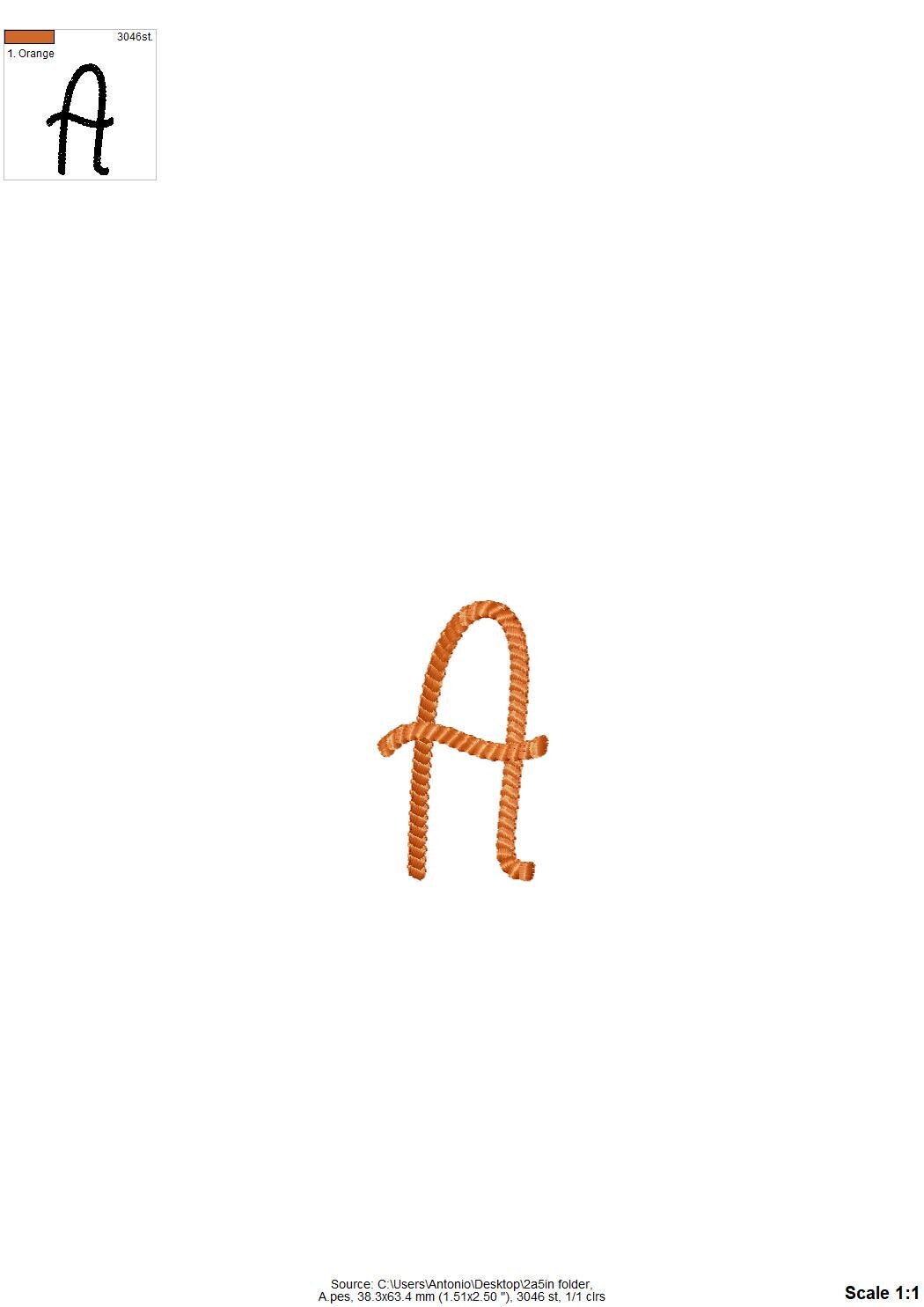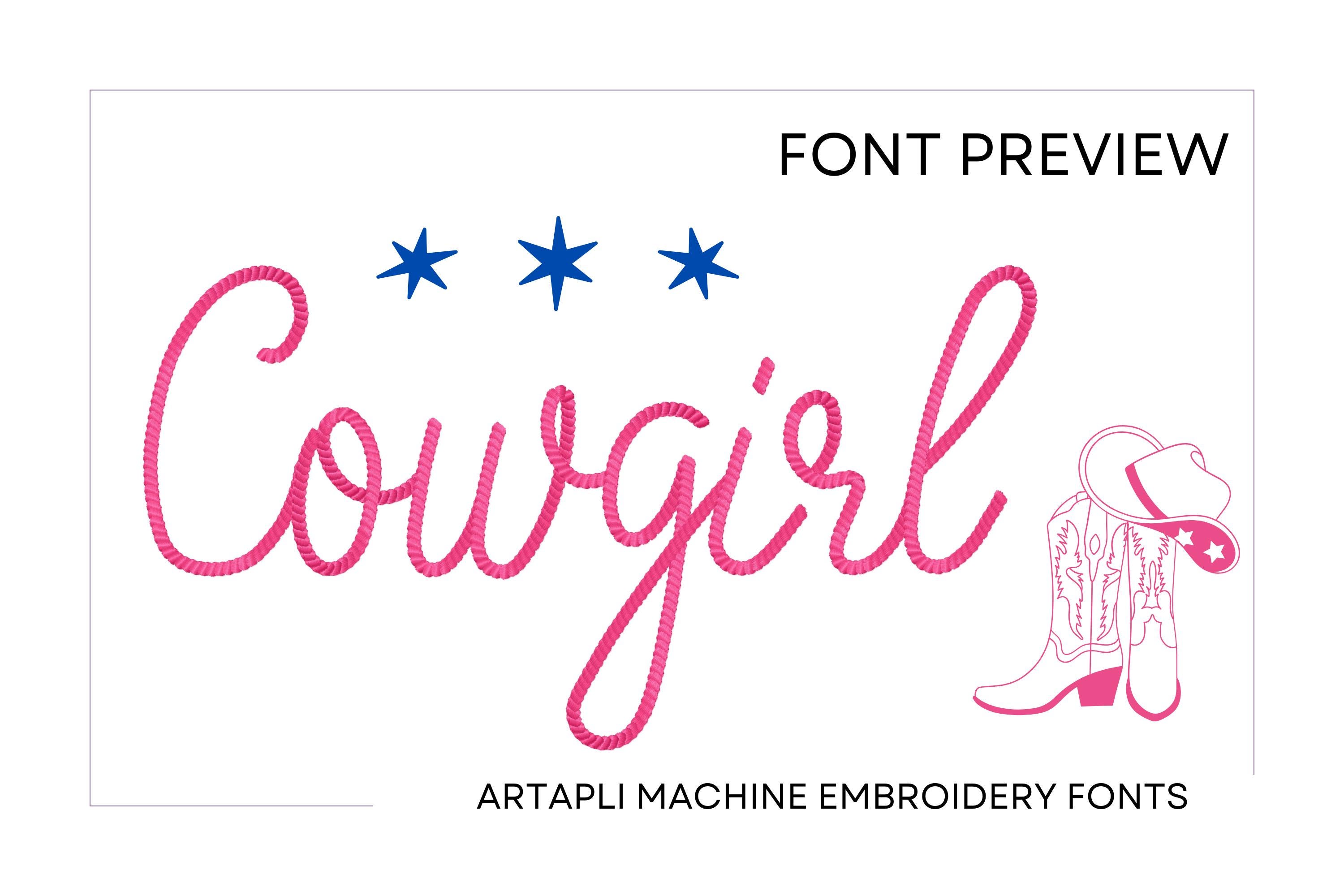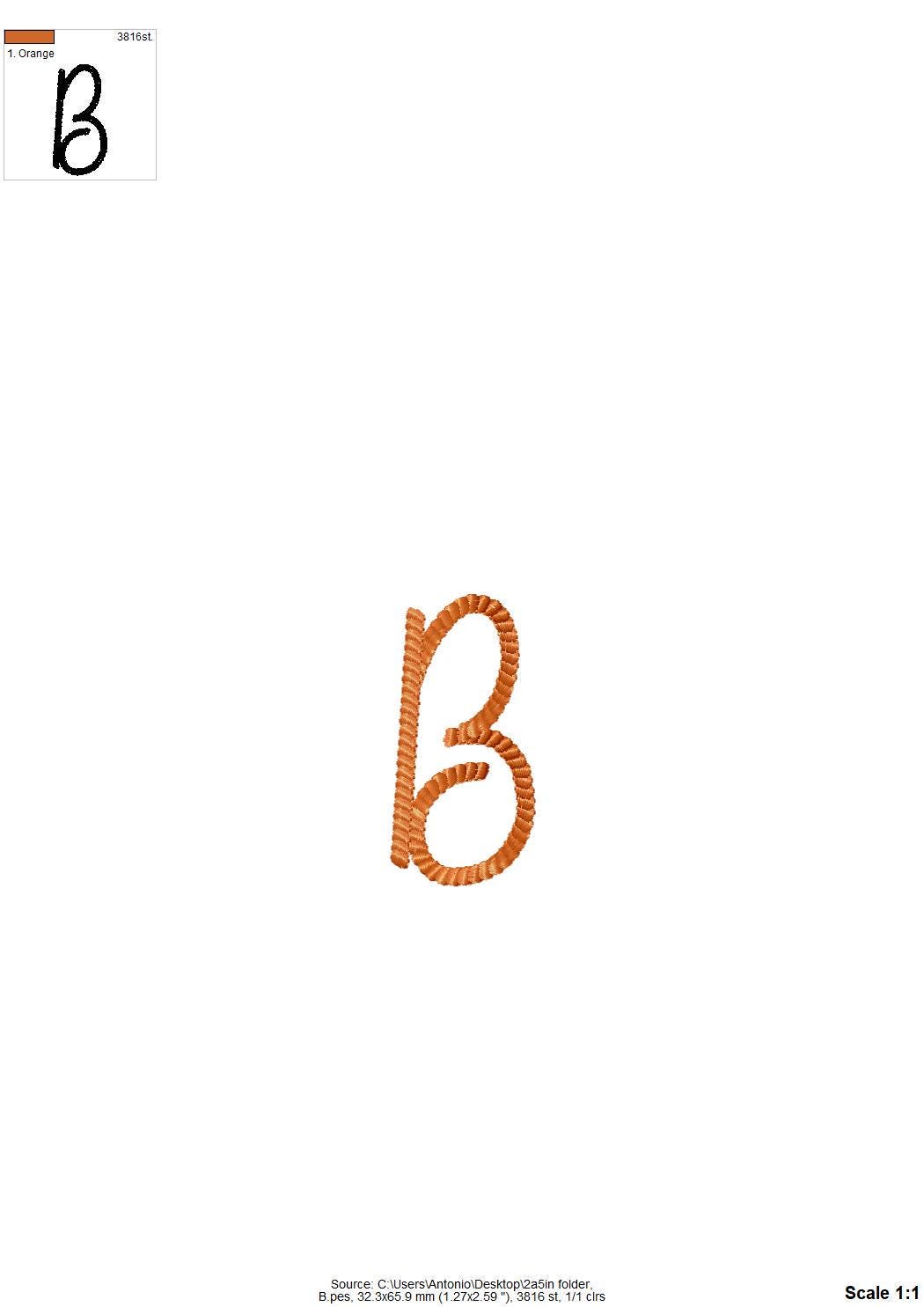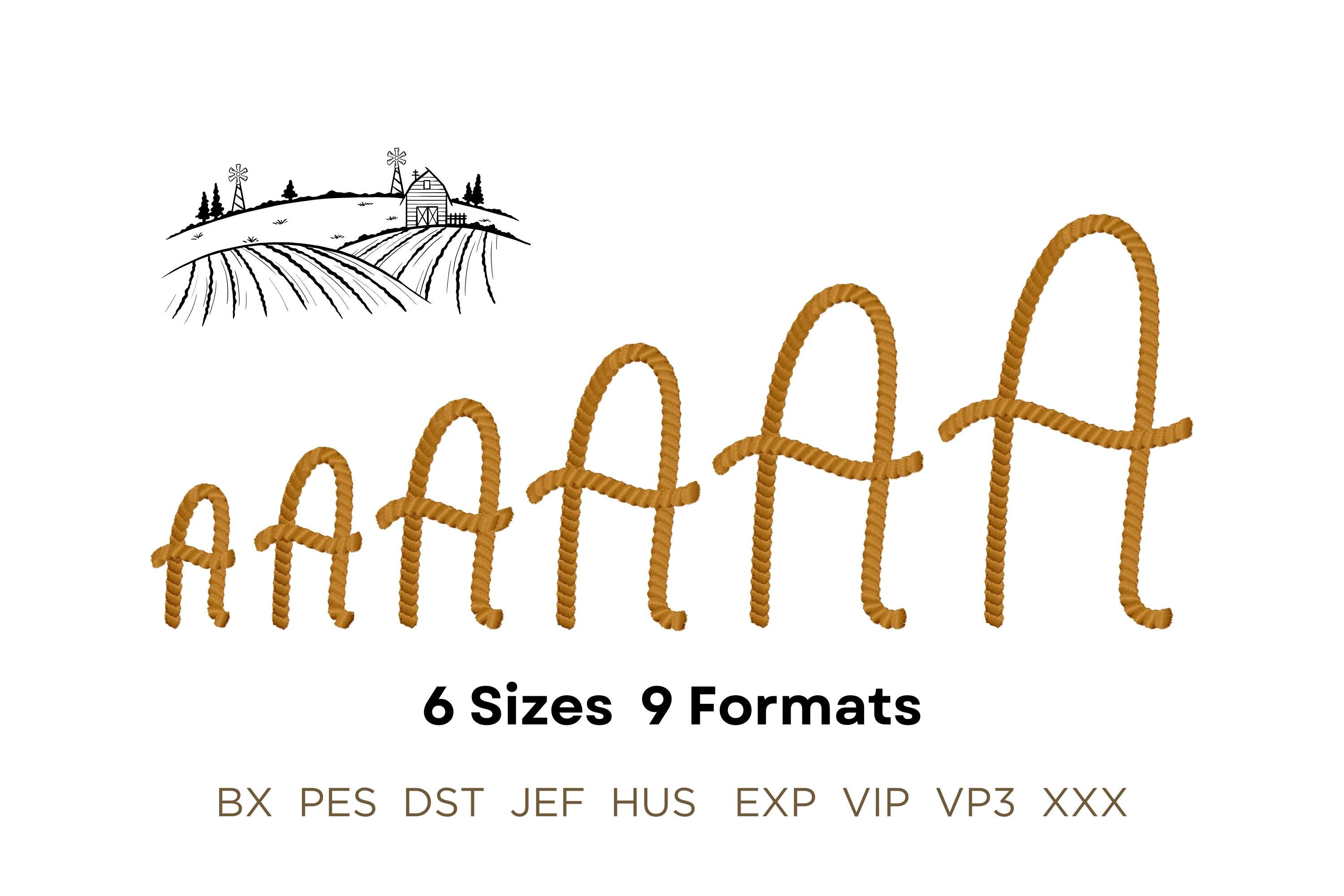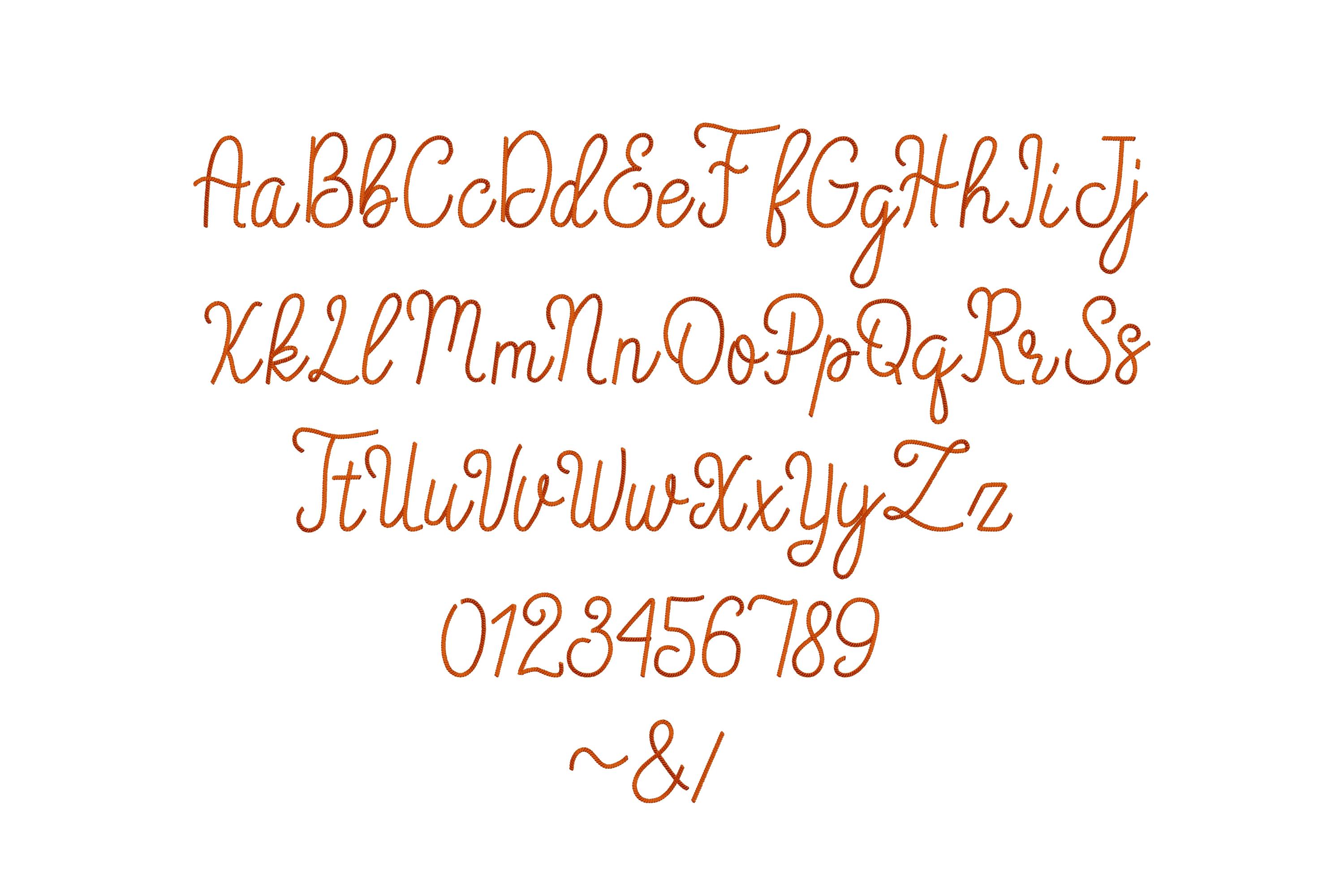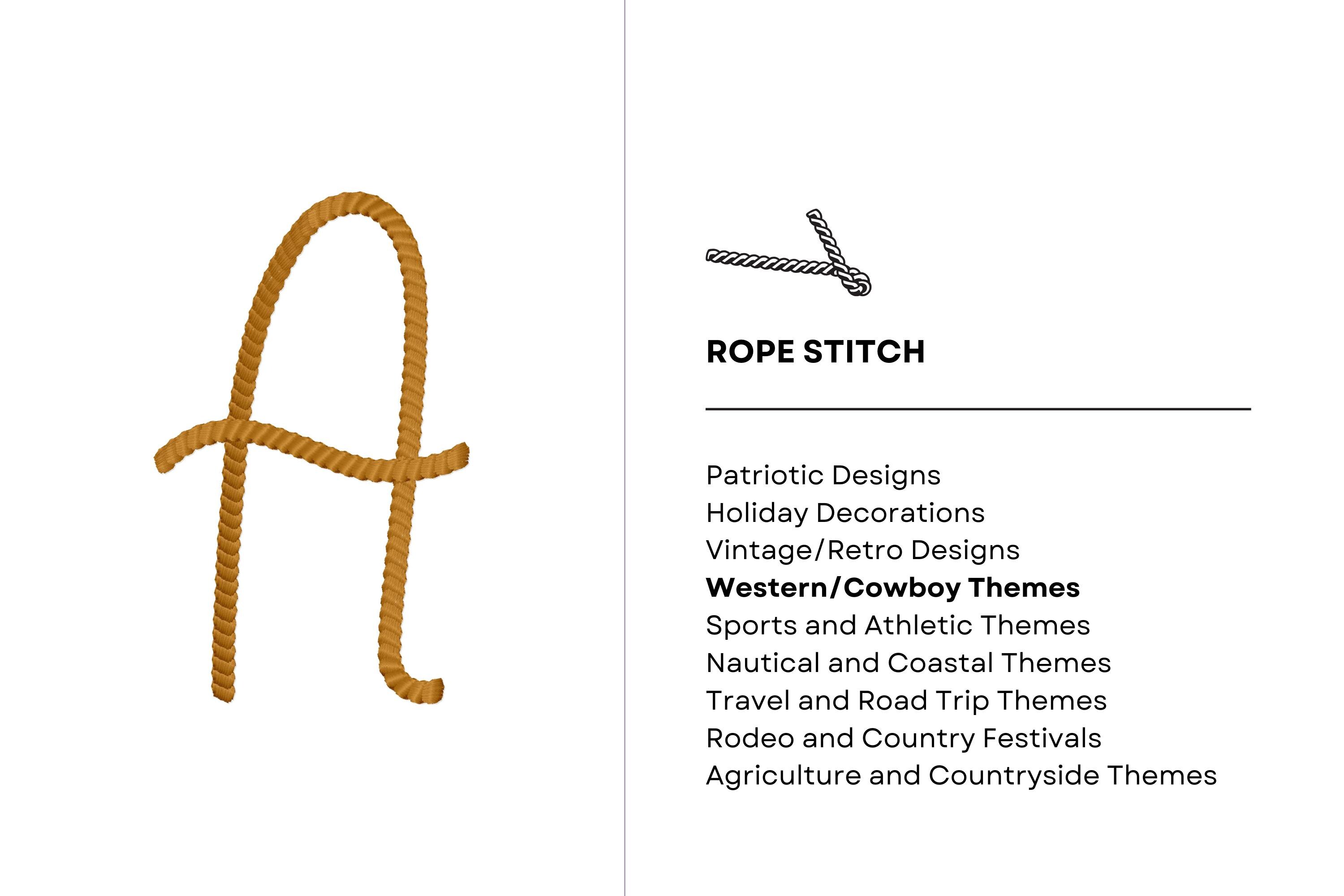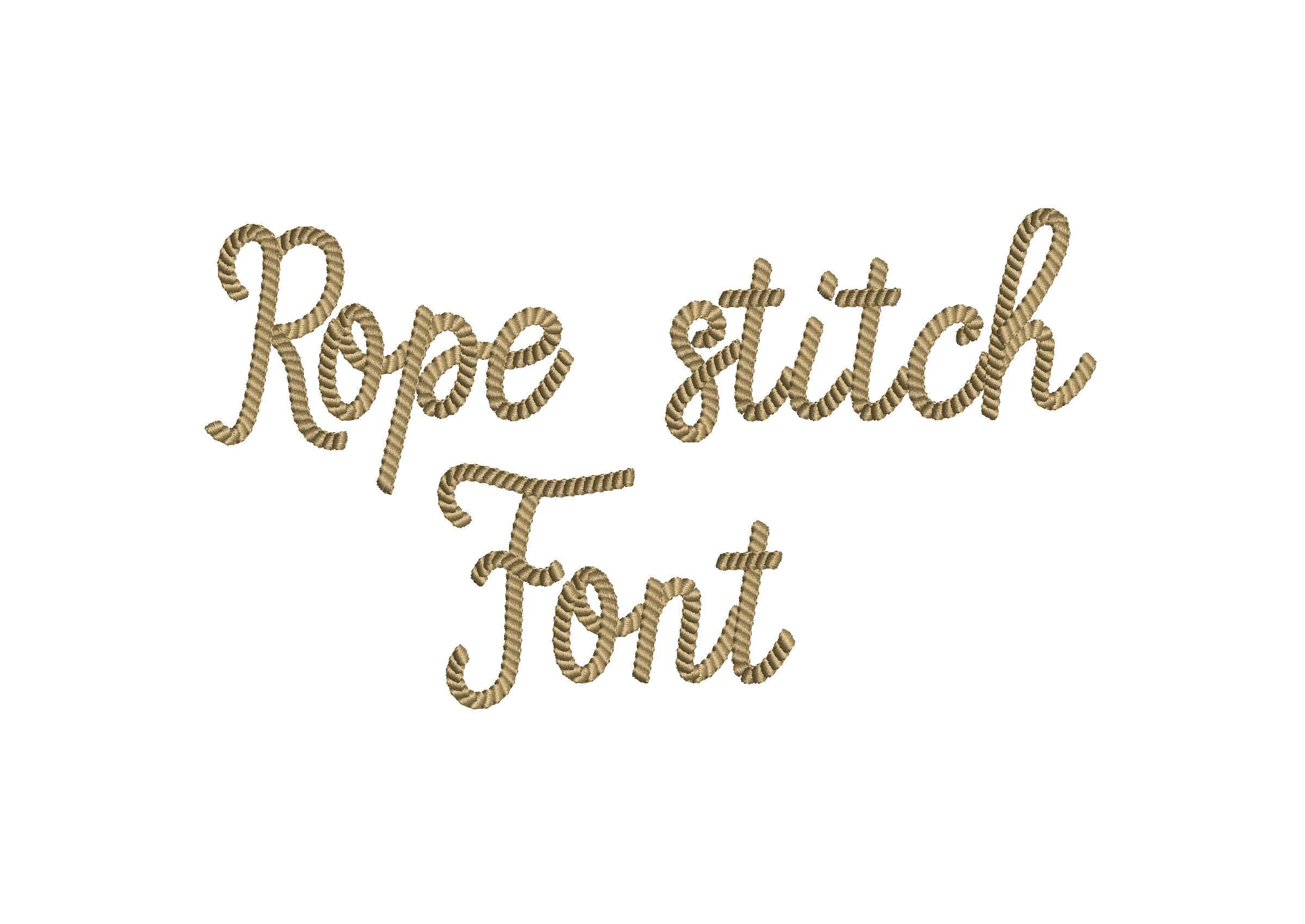
Handwritten rope stitch FONT Sandy machine embroidery designs sizes 1.3 to 3.6 inch alphabet letters cowboy cowgirl monogram rodeo lasso
Entire alphabet uppercase and lowercase letters, numbers, and punctuation.